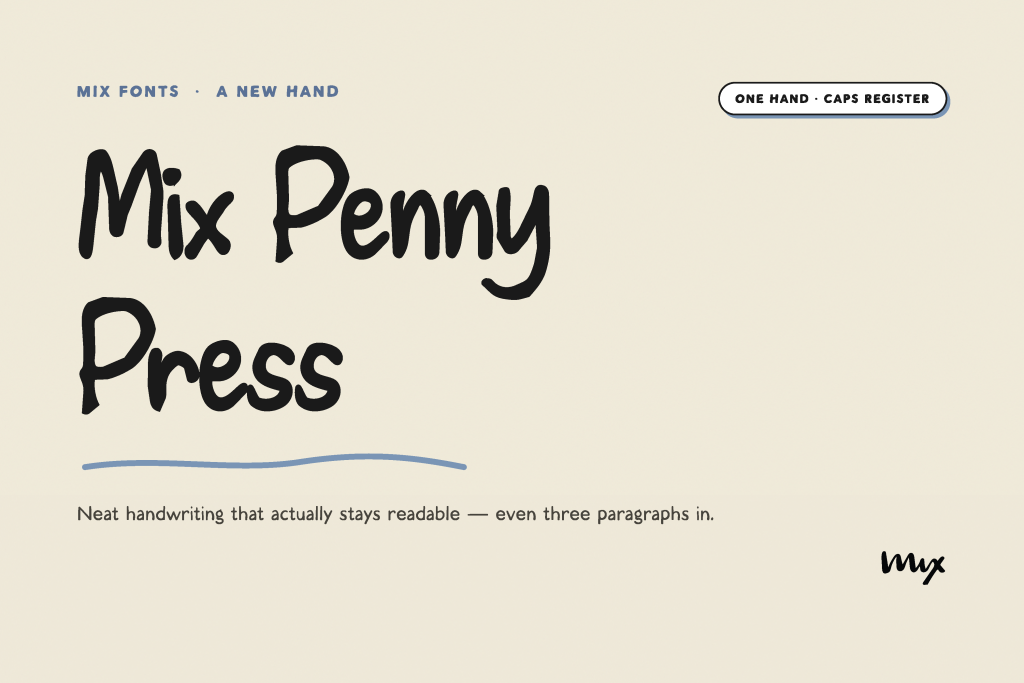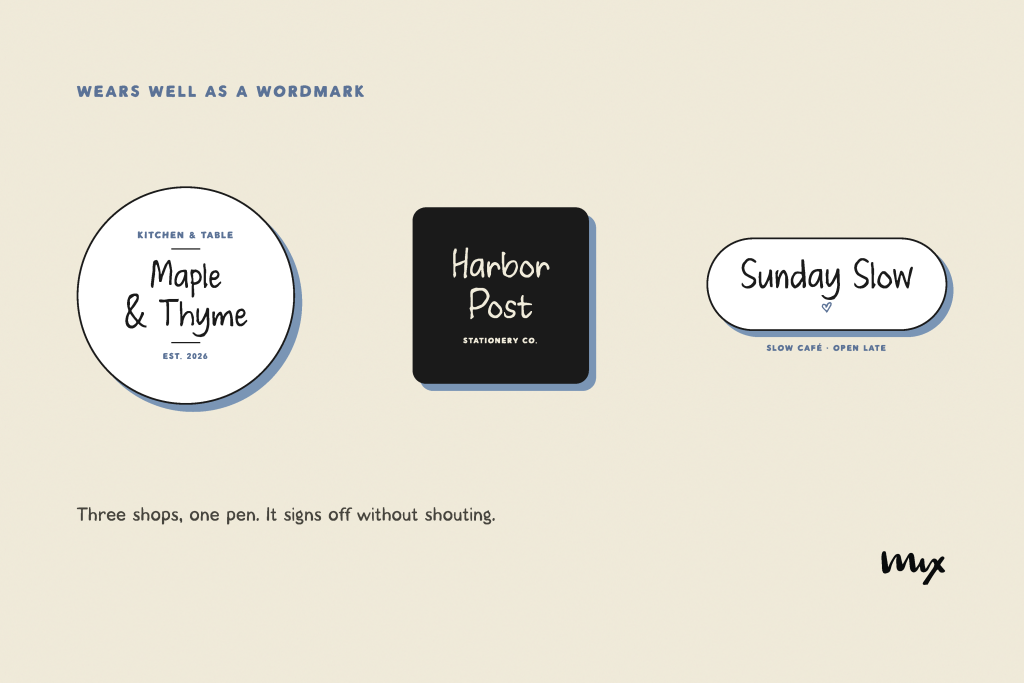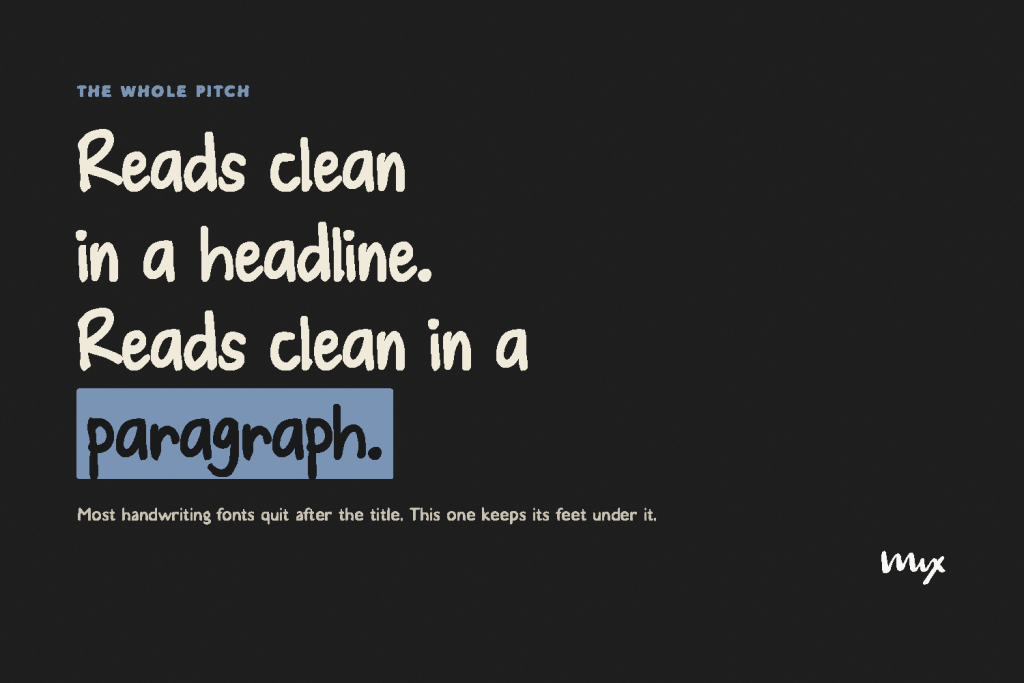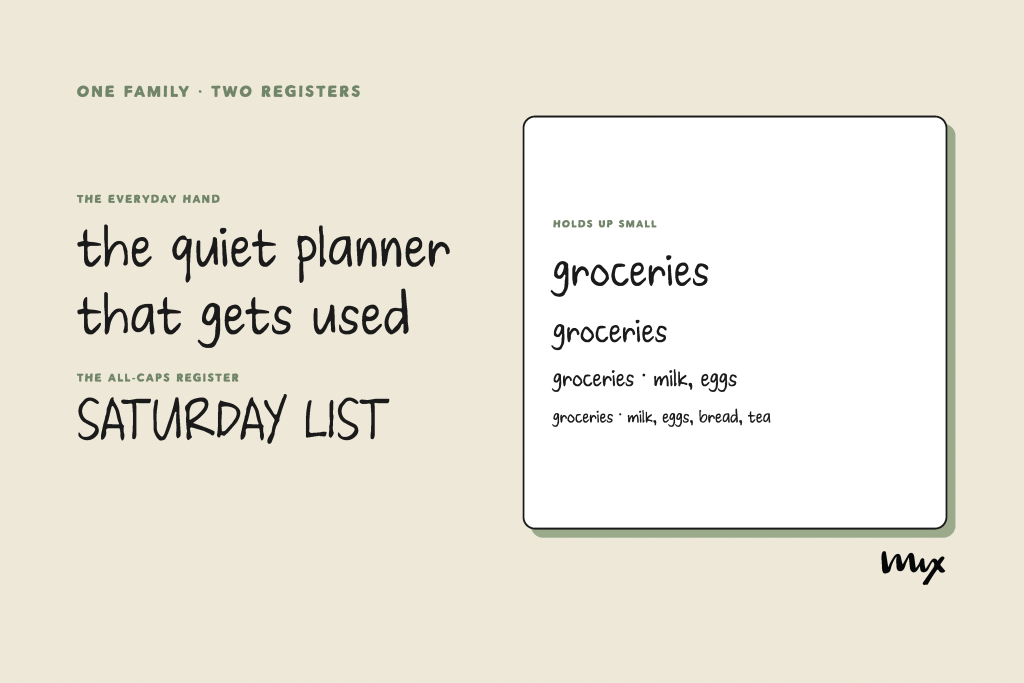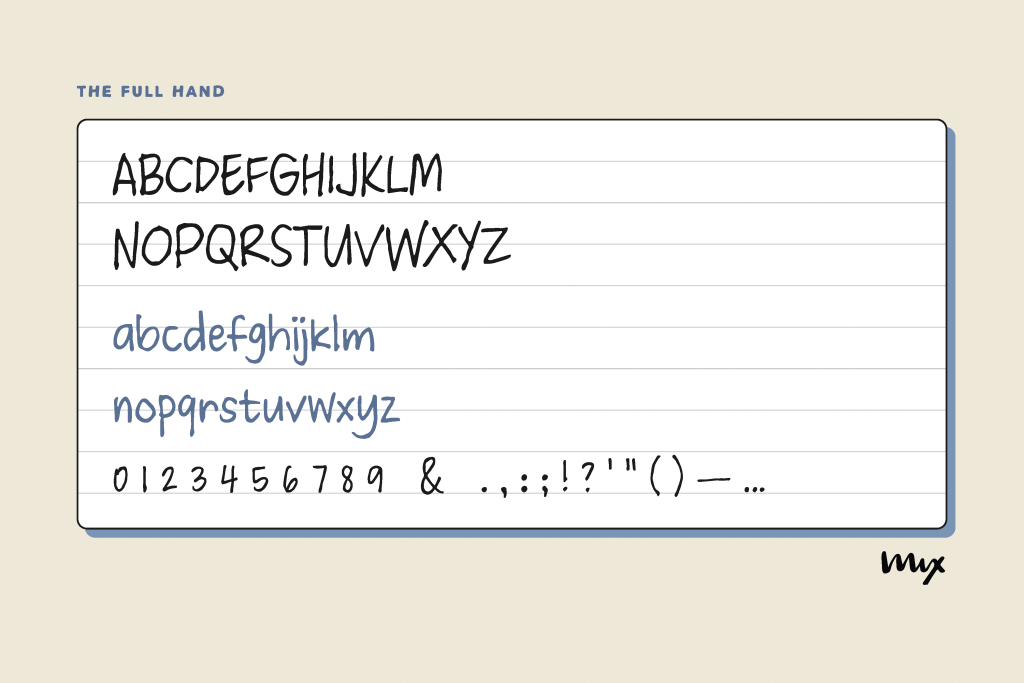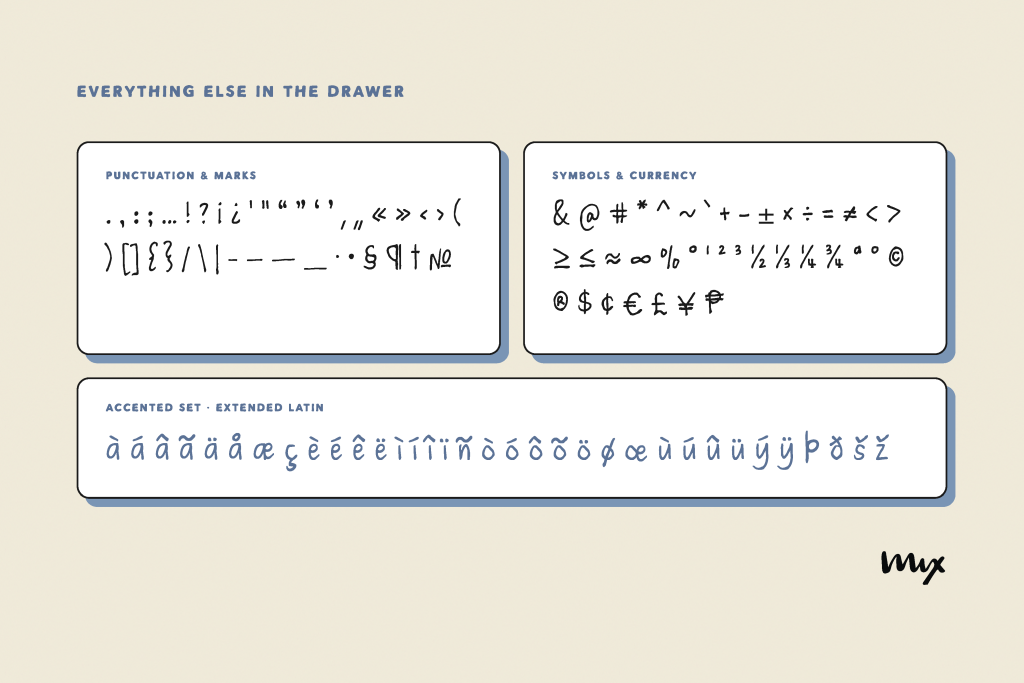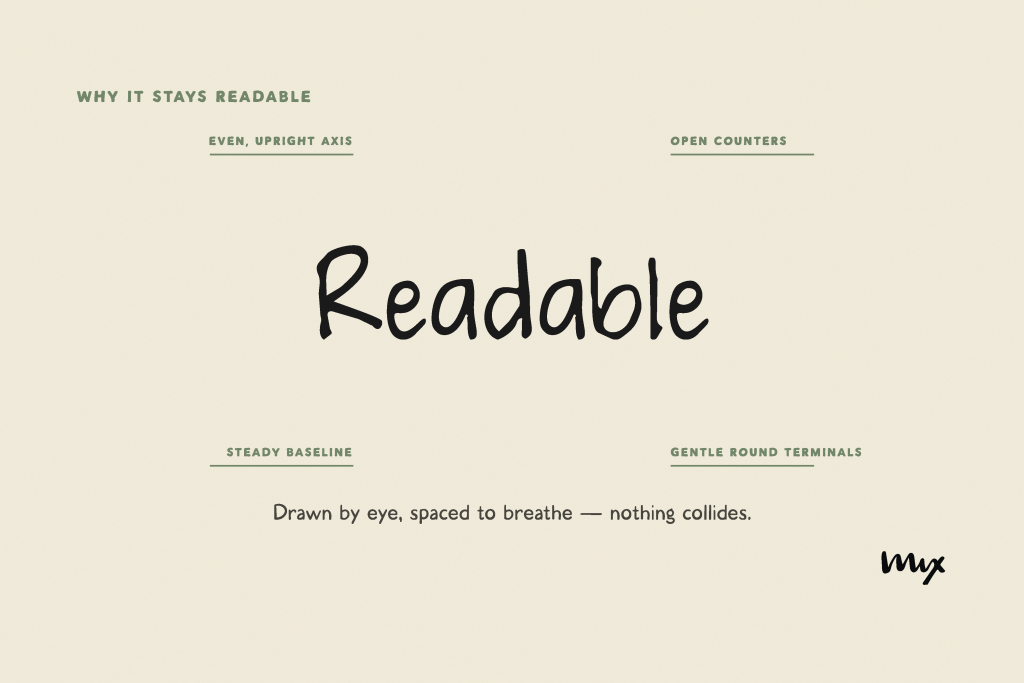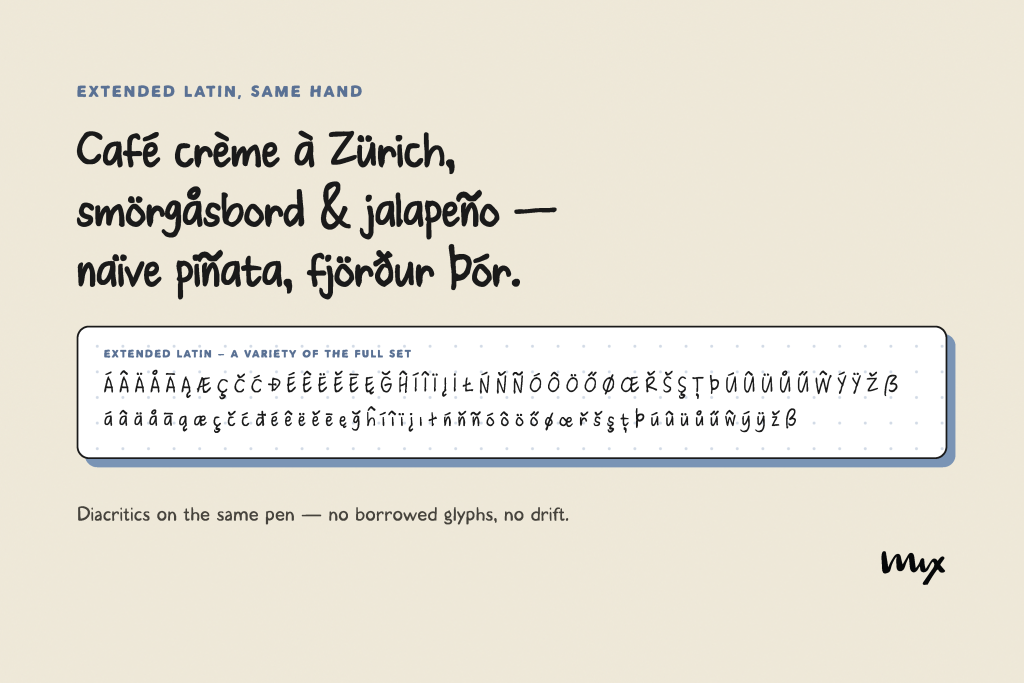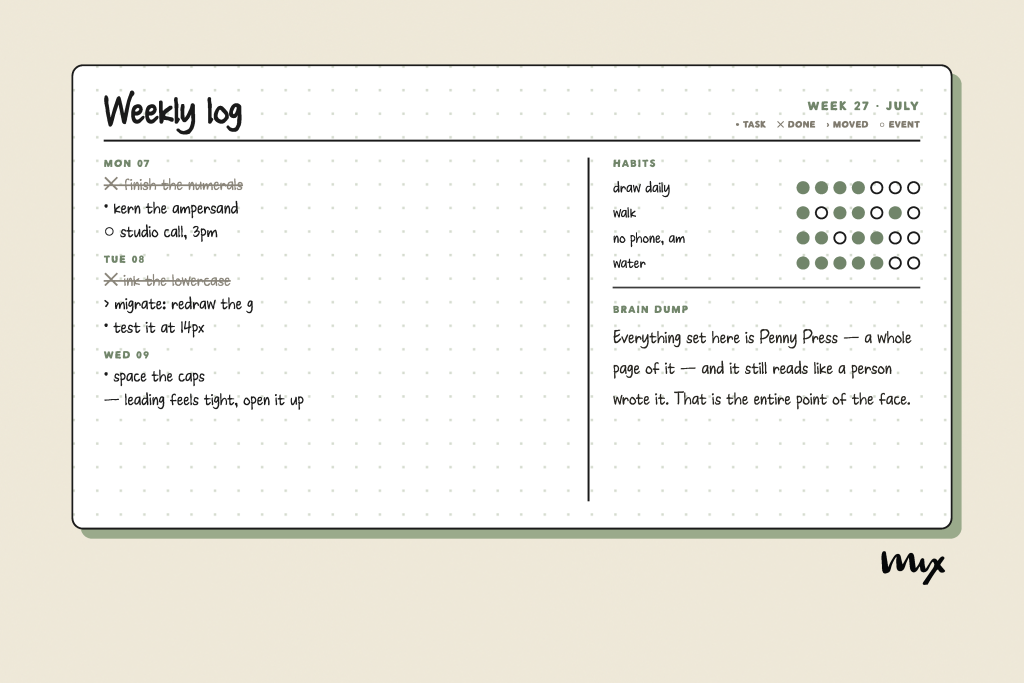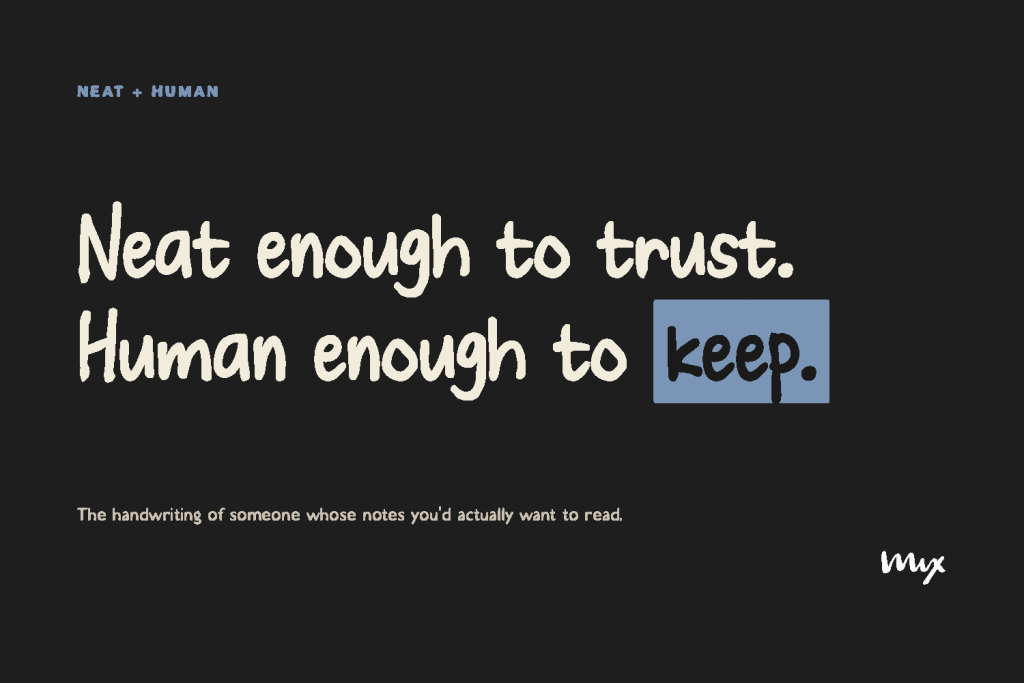
Mix Penny Press
Neat handwriting that stays readable, even three paragraphs in.
Mix Penny Press is neat handwriting that actually stays readable, even three paragraphs in.
Most handwriting fonts look great in a title and fall apart the moment you ask them to hold a sentence. Penny Press was drawn the other way round: an even, upright axis, open counters, a steady baseline, and gentle rounded terminals, so it reads clean in a headline and keeps its feet under it all the way down a paragraph. Nothing collides, nothing gets tired.
It works in two registers: an everyday lowercase for planners, notes, and body text, and a sharp all-caps look for lists, labels, and headers. Full punctuation, symbols, currency, and an extended Latin set are all drawn on the same pen, so accents and diacritics never look borrowed.
Use it for planners and journals, packaging, product branding, greeting cards, editorial layouts, and anywhere you want handwriting that feels personal but still does its job.
Made for: planners and journaling, stationery and packaging, logos and wordmarks, greeting cards, children’s books, and long-form handwritten text that needs to stay legible.